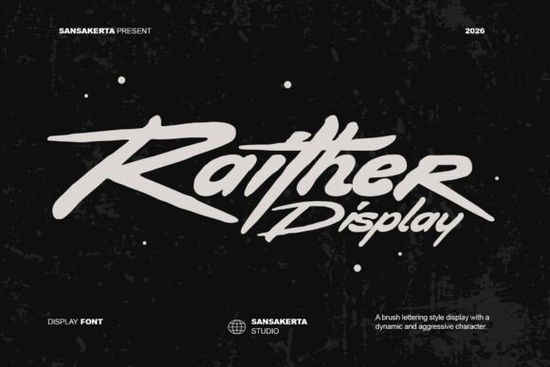
If you're looking for a bold, expressive font that brings attitude and movement to your designs, Raither Display is a strong choice especially if your work leans into high-energy themes like street racing, garage culture, or edgy branding. This display font stands out with its handcrafted brush strokes and raw, dynamic feel, making it ideal for headlines, posters, music covers, and any project where you want to make a statement.
What makes Raither Display special?
Unlike stiff, uniform typefaces, Raither Display feels alive. It’s designed with natural brush textures that mimic real hand lettering each stroke has variation, pressure, and rhythm. That gives your design an authentic, one-of-a-kind look whether it’s printed on a t-shirt or used in a digital ad. The aggressive character works well when you need energy and rebellion, but it also holds up beautifully in minimalist layouts thanks to its strong visual presence.
It draws inspiration from automotive culture and street racing aesthetics think custom cars, neon signs, and underground events. If your brand or project has a gritty, fearless vibe, this font adds instant credibility without needing extra graphics.
Where can you use Raither Display?
- Posters and event flyers: Perfect for motorcycle shows, drag races, or music gigs with a rebellious tone.
- Branding and logos: Great for garage brands, custom car shops, or fashion lines with an urban edge.
- Print-on-demand products: Use it on hoodies, mugs, and tote bags to appeal to fans of bold, expressive design.
- Music album covers: Its raw energy matches well with punk, hip-hop, or electronic genres.
- Vintage-inspired projects: Pair it with retro colors and distressed textures for a throwback feel.
You’ll find that Raither Display performs well across both digital and print formats. The font retains clarity at large sizes and doesn’t lose detail when scaled down, which is important for small product labels or social media thumbnails.
How does it compare to other fonts in the collection?
If you’ve explored similar fonts on Creative Fabrica, you might have noticed styles like vintage magazine fonts, Pepper Pedro, or Sunny Gang. Each has its own personality some more playful, others more refined. But Raither Display stands apart with its focused intensity and organic brush style.
For example, while Simply Playful offers a cheerful, bubbly tone, Raither goes in the opposite direction gritty, confident, and full of motion. It’s not about sweetness; it’s about power and presence.
Why designers choose this font
Designers who work with print-on-demand platforms or small creative businesses often need fonts that are versatile and instantly recognizable. Raither Display fits that need. It’s not just eye-catching it’s memorable. Once someone sees your design with this font, they’re likely to remember the brand or message.
Pro tip: Layer it with simpler fonts
To avoid overwhelming your design, pair Raither Display with a clean, neutral font for body text. For instance, use a sans-serif like Lato or Montserrat for descriptions or captions. This contrast lets the display font shine while keeping readability high.
Also consider adding subtle textures or overlays like grunge layers or faded backgrounds to enhance the handmade feel without cluttering the layout.
Final thoughts
Raither Display isn’t just another flashy font. It’s built for creators who value authenticity and impact. Whether you're designing a poster for a local race event or launching a new apparel line, this font brings a sense of urgency and edge that’s hard to replicate.
It’s especially useful if you’re exploring themes related to freedom, speed, or individuality. And because it’s part of a growing library of expressive display fonts on Creative Fabrica, you can mix and match with others to build consistent visual identities.